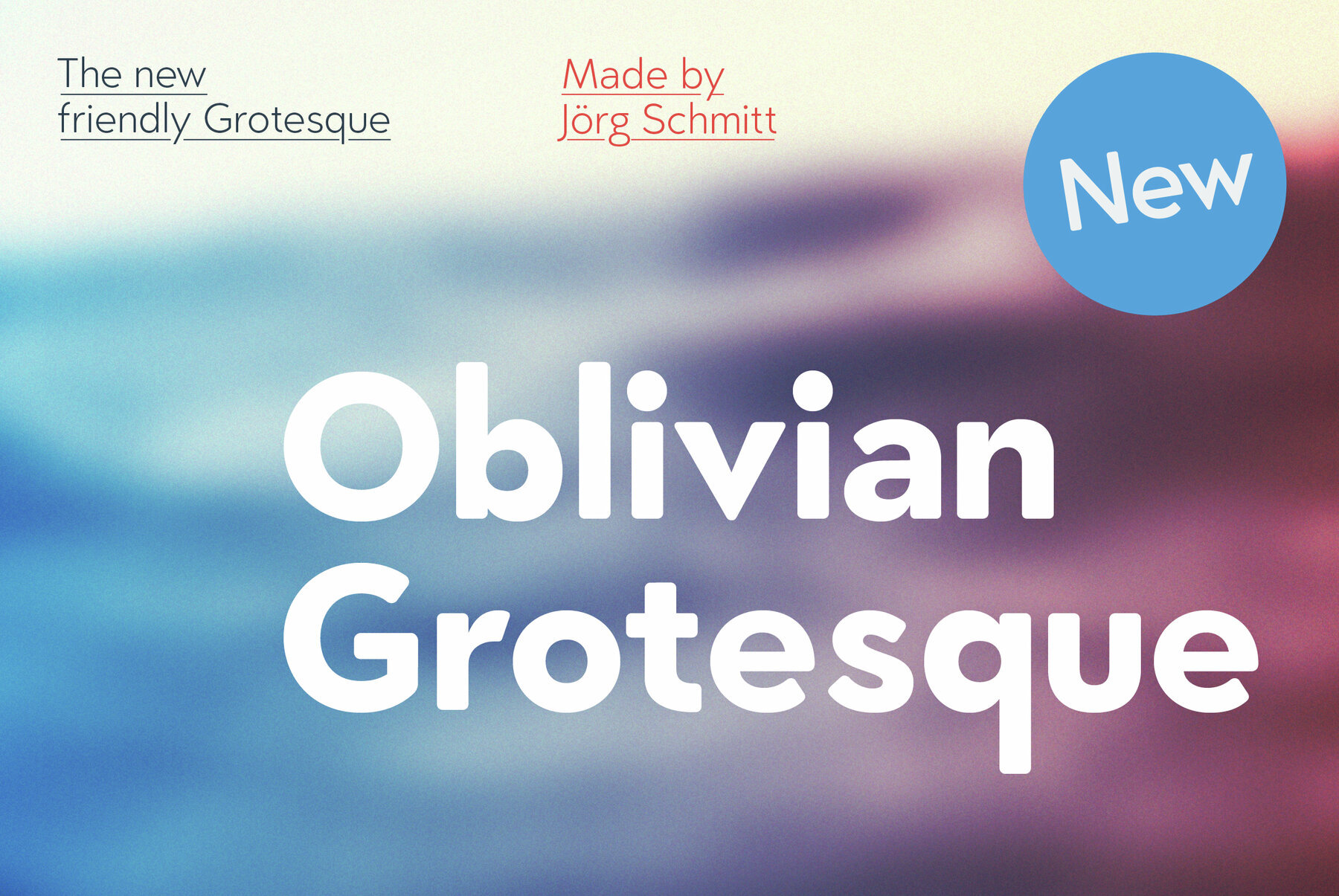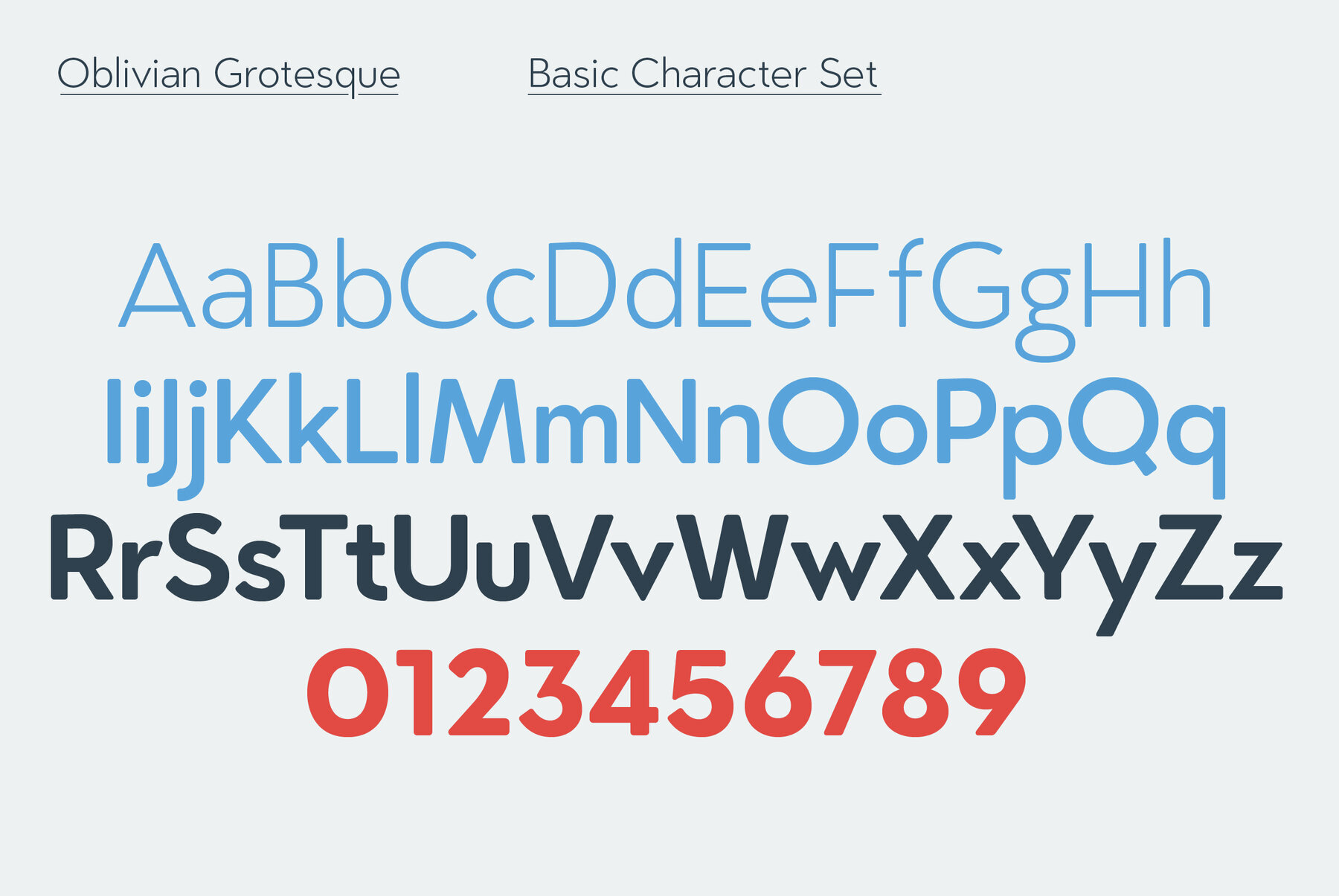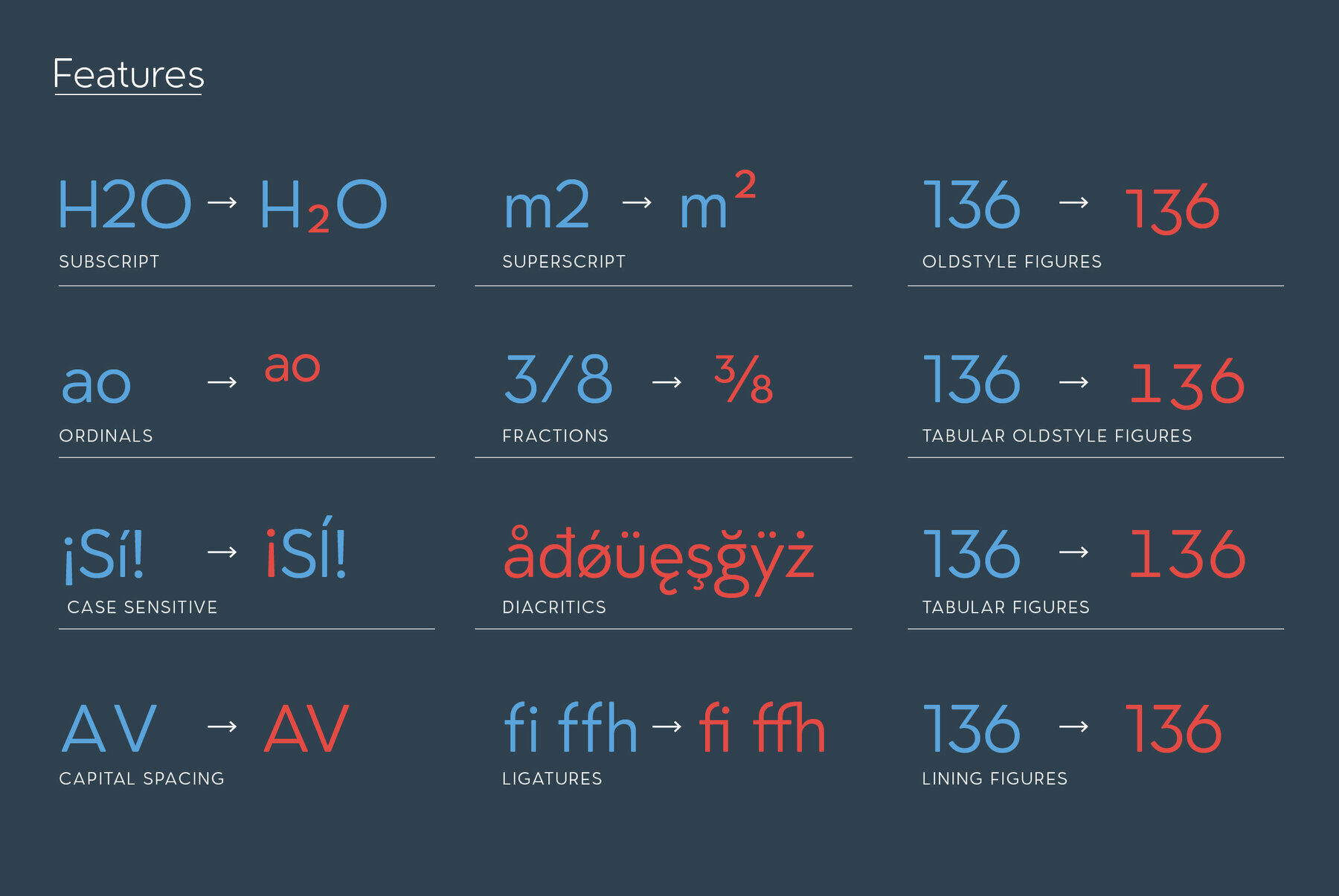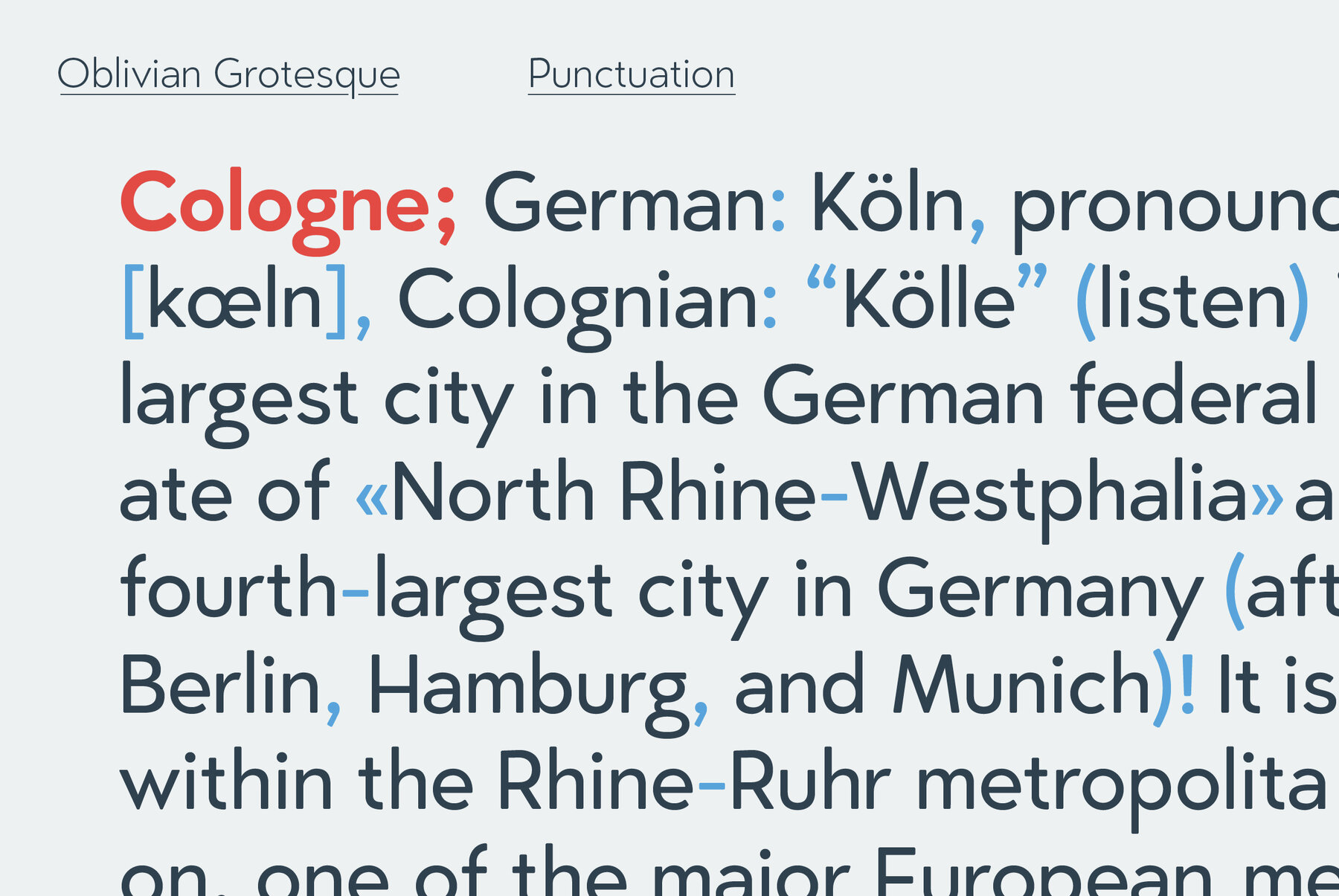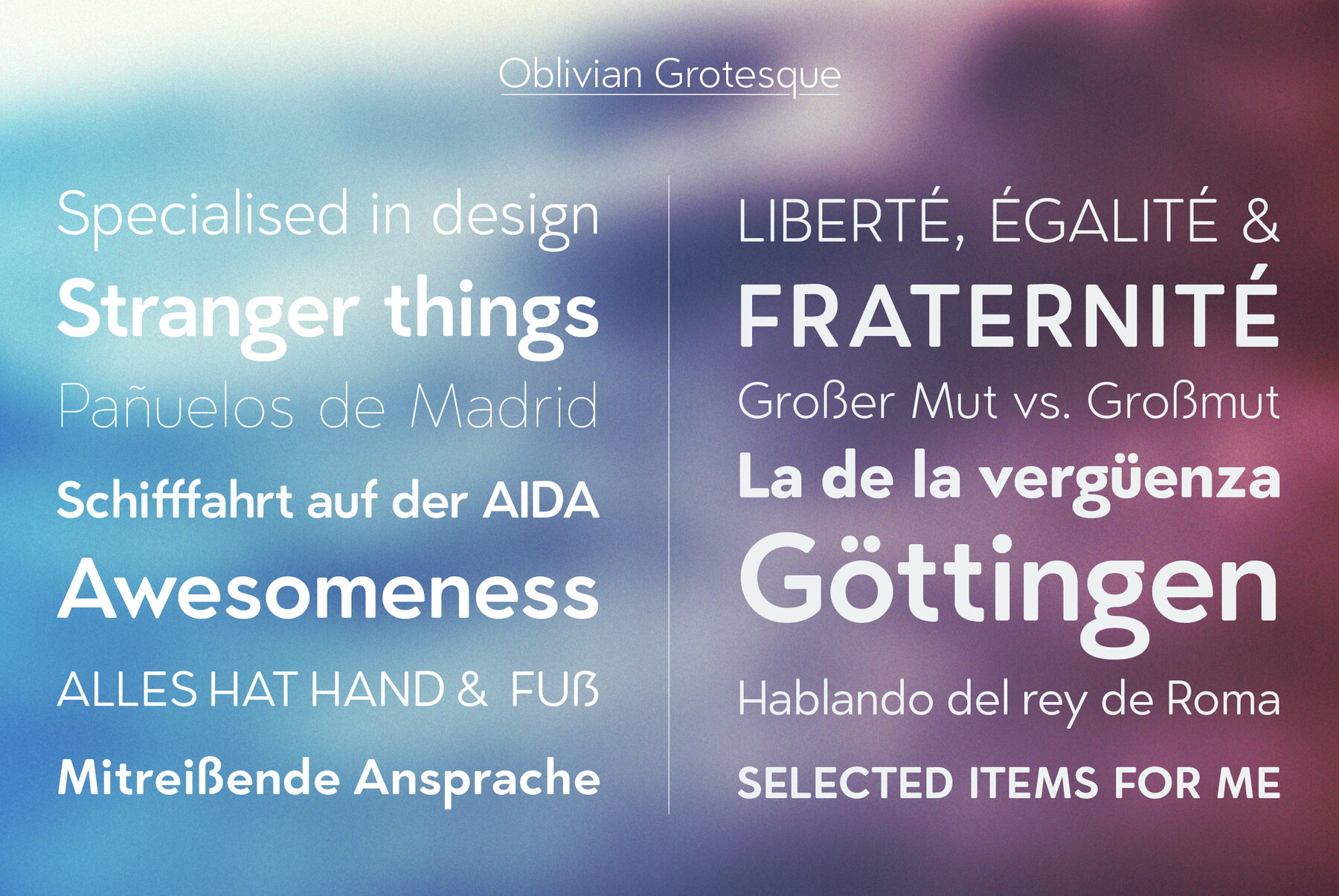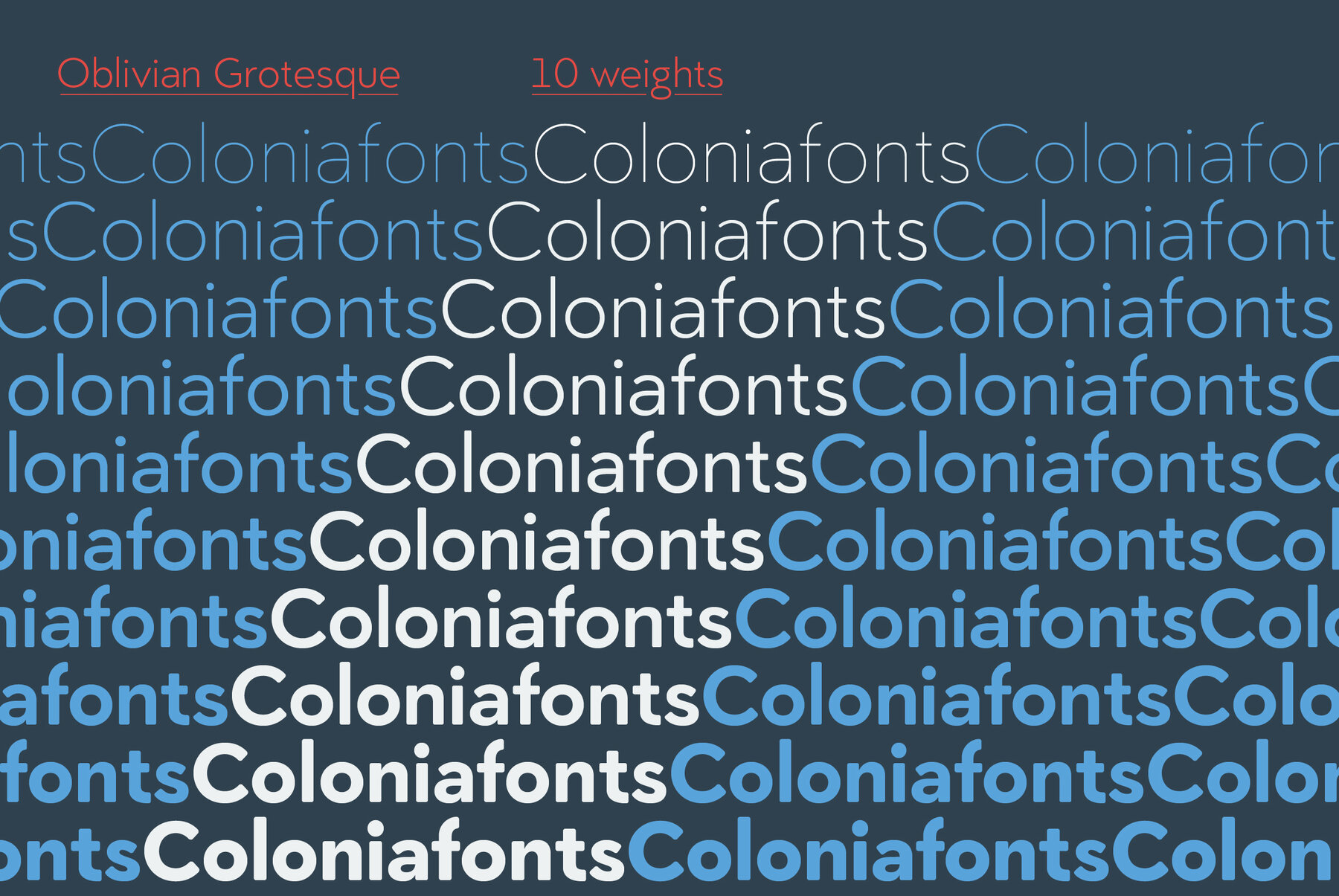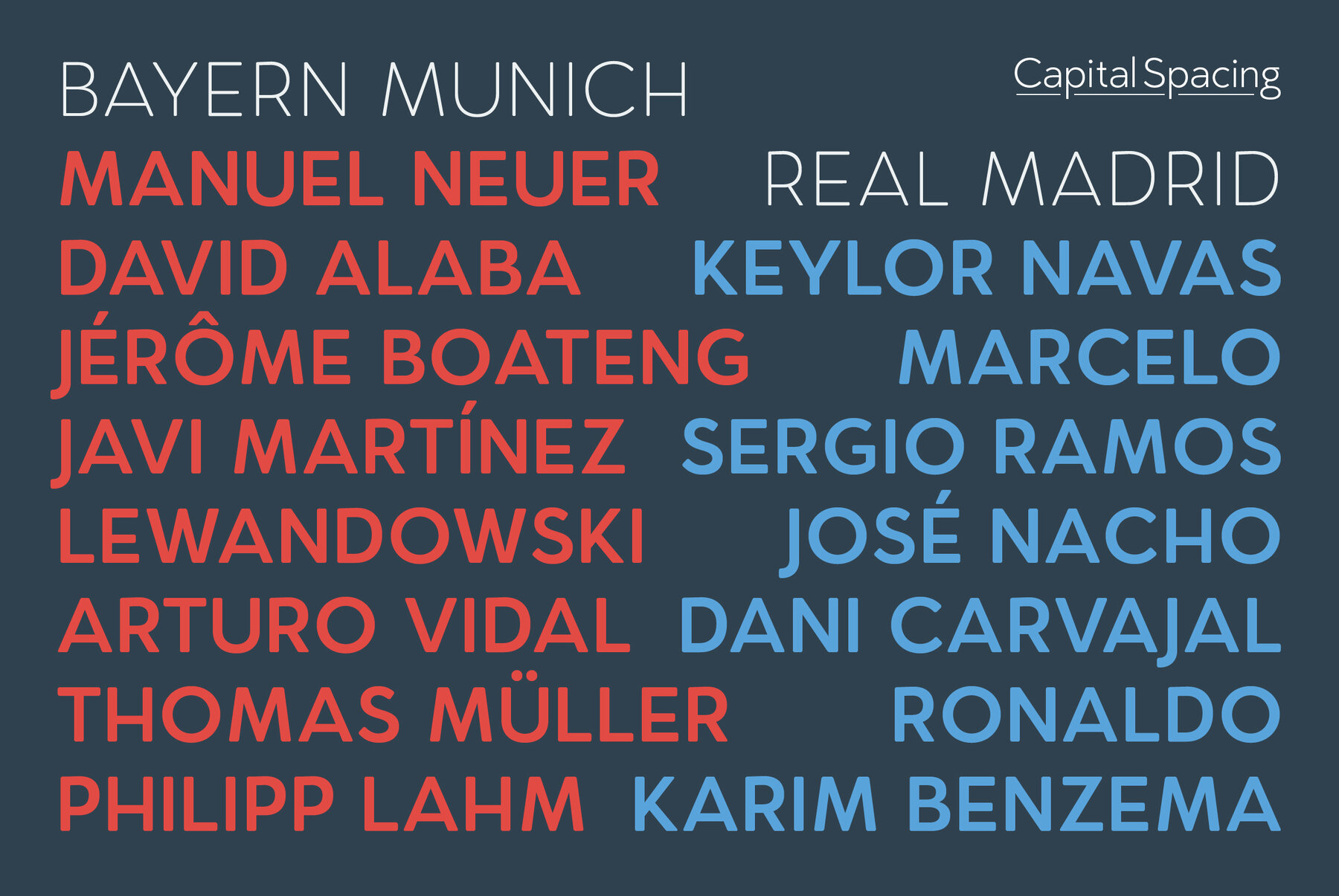
Oblivian Grotesque Font
Oblivian Grotesque is a sans serif type family of ten weights. The typeface is based on geometric forms with bits and pieces of modern humanistic grotesque fonts. Due the the rounded edges it has a very soft / warm look and feel. It comes along with a lot of OpenType features such as table and old style figures.
The OpenType fonts have an extended character set to support Central and Eastern European as well as Western European languages.